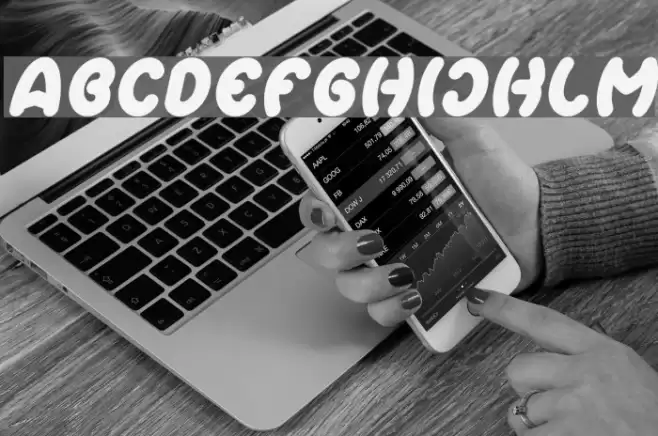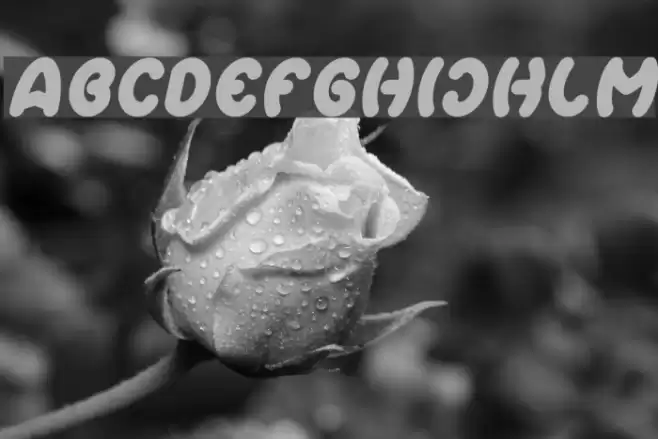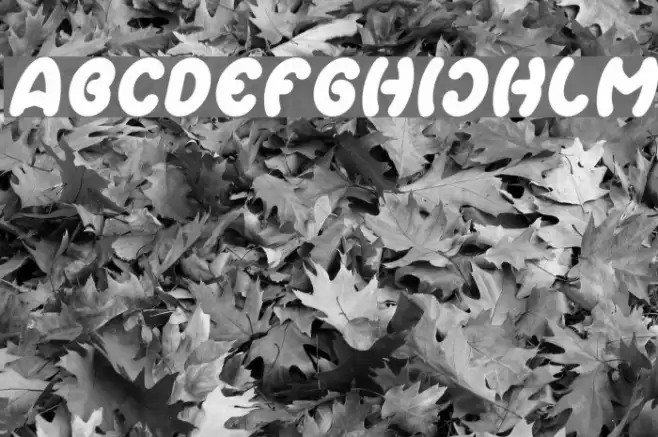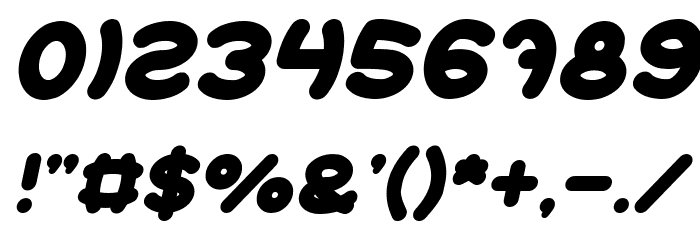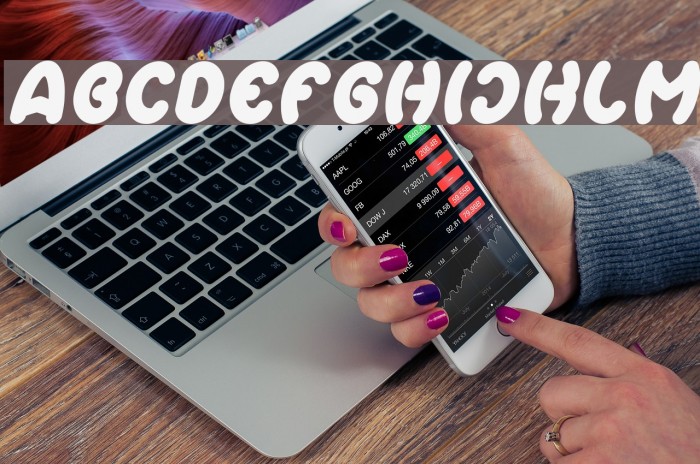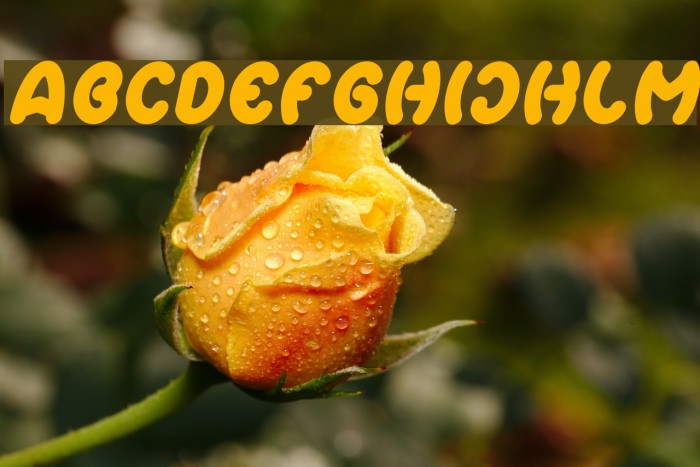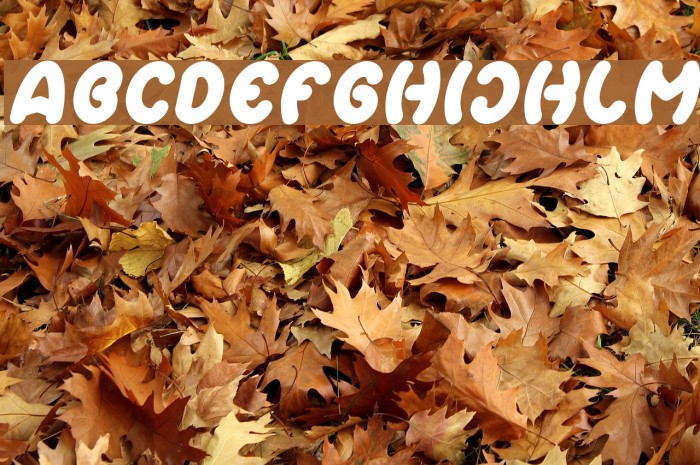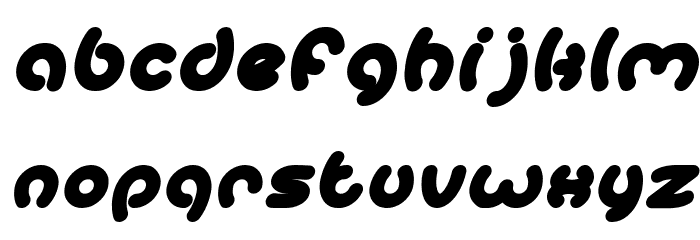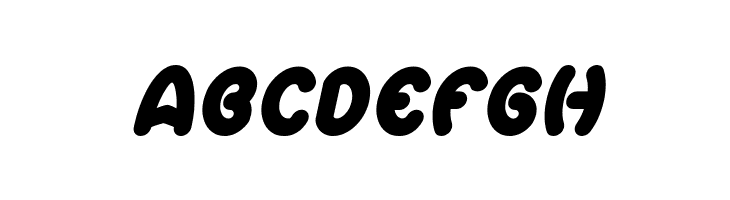
Earth Heart Italic Font
Earth Heart Italic Description
This font features a playful and bold design with rounded, bubbly characters that convey a sense of fun and creativity. The letters are thick and have a consistent stroke width, giving them a strong presence on the page. The style is reminiscent of hand-drawn lettering, with a slightly informal and whimsical touch. The characters are closely spaced, enhancing the compact and cohesive look of the text. This font includes a full set of uppercase and lowercase letters, numbers, and a variety of special characters, making it versatile for different design needs.
A playful, bold font with rounded, bubbly characters and a whimsical touch from Uncategorized fonts.
- Proposed Projects: Ideal for children's books, playful branding, greeting cards, and creative posters.
- Character Spacing: Tight
- Overall Style: Playful